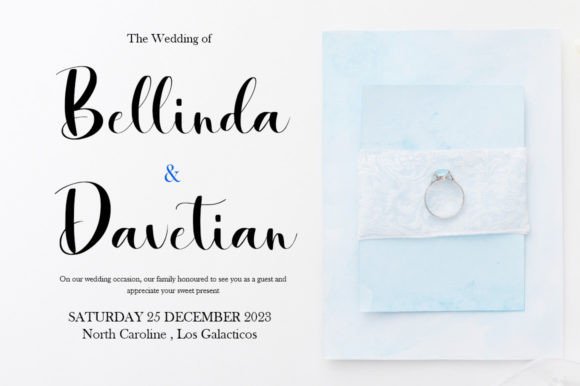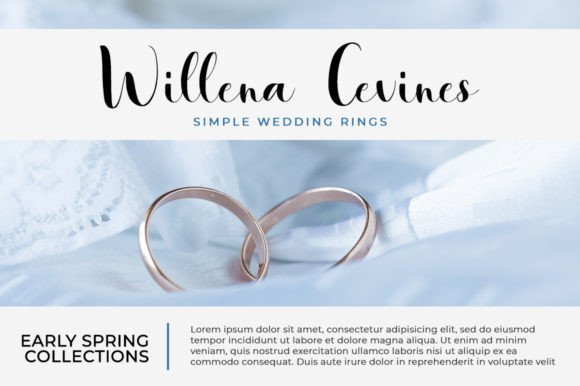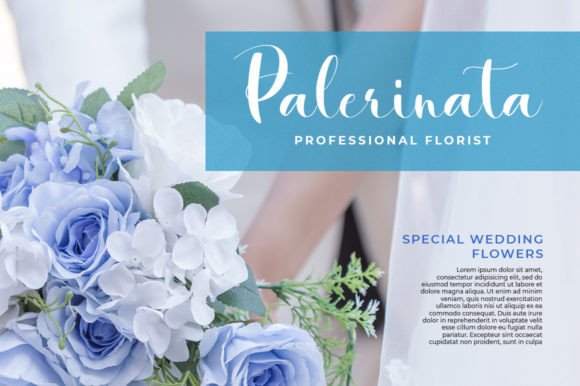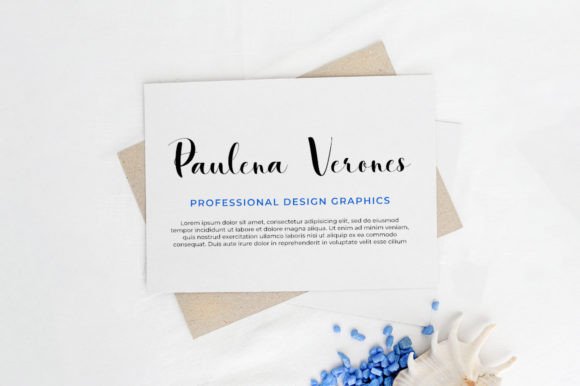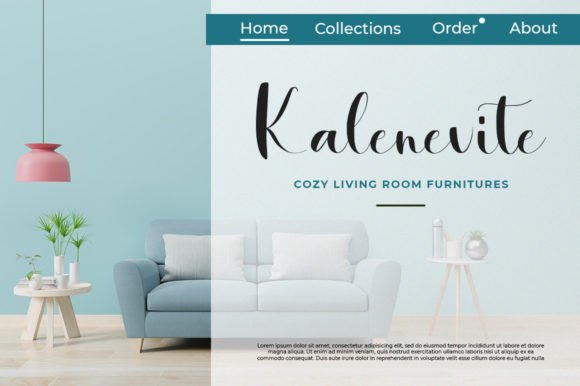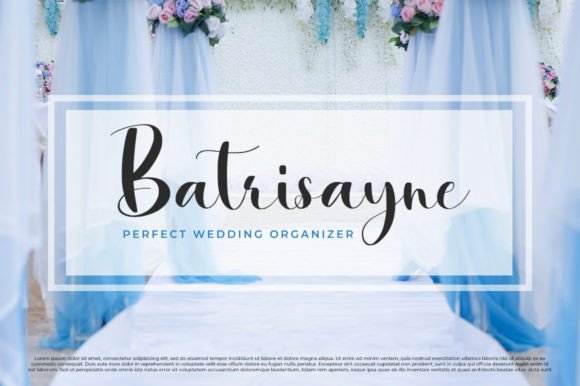
Introduction to Lichanoele Font
Do you remember the moment when you stumbled upon a beautiful handwritten note in a quaint little café, and you felt an instant connection to the person who wrote it? The way the words flowed, the curves and the lines, it was as if the writer had poured their heart and soul into every stroke. That’s exactly what the Lichanoele Font can bring to your creative projects – a touch of elegance, a dash of sophistication, and a whole lot of personality.
As a designer, you know the importance of having the right design resources at your fingertips. The Lichanoele Font is a high-quality, free download that can elevate your projects to the next level. Whether you’re working on a logo, an invitation, or a social media post, this beautiful script font can add a level of depth and character that will set your work apart. With its transparent background, it’s perfect for any design project that needs a creative touch.
So, what are you waiting for? Dive into the world of Lichanoele Font and discover a new level of design freedom. This versatile font is perfect for any creative project, from branding and product design to photography and special events. Get ready to add a personal touch to your work and make it truly unforgettable.
Key Features of Lichanoele Font
- Unique, hand-drawn design for a creative project, offering a distinctive touch to any layout or composition.
- Transparent background, allowing for seamless integration into any design, whether it’s a digital or print project.
- Comes in a single font size, making it easy to use and customize in various creative projects.
- Perfect for designers, artists, and writers looking to add a personal touch to their work, and ideal for use in various creative projects, from logos to book covers.
Honest Review: Lichanoele Font
I recently stumbled upon the Lichanoele Font, a design resource that has caught my attention. As a designer, I appreciate the value of high-quality fonts that can elevate a creative project.
- ✨ Unique and creative design: The Lichanoele Font has a distinctive look that sets it apart from more generic fonts.
- ✨ High quality: The font is well-designed and rendered, making it perfect for use in both digital and print projects.
- ⚠️ Limited character set: The font only includes a limited character set, which may not be suitable for more extensive projects.
- ⚠️ No transparent background: The font does not include a transparent background option, which may be a limitation for designers working with complex backgrounds.
Overall, the Lichanoele Font is a solid addition to any designer’s toolkit. While it has some limitations, its unique design and high quality make it an excellent choice for creative projects. If you’re looking for a free design resource, I’d definitely recommend checking it out – especially if you’re working on a project that requires a distinctive, high-quality font.
The Lichanoele Font is a high-quality design resource that can be used for various creative projects. It offers a unique and elegant style that can enhance the visual appeal of your designs.
Tips for Getting the Most Out of Lichanoele Font
To get the most out of Lichanoele Font, use it with a transparent background to create a sleek and modern design. You can also experiment with different font sizes and styles to add visual interest to your design.
The Lichanoele Font is commonly used for:
- Brand logos and identity designs
- Website and blog headers
- Print materials, such as business cards and brochures